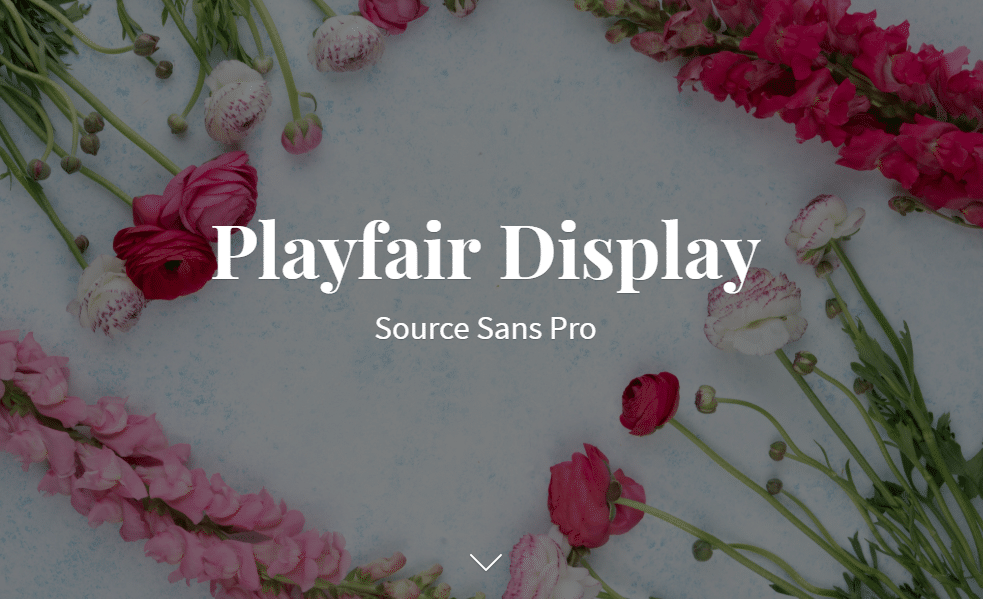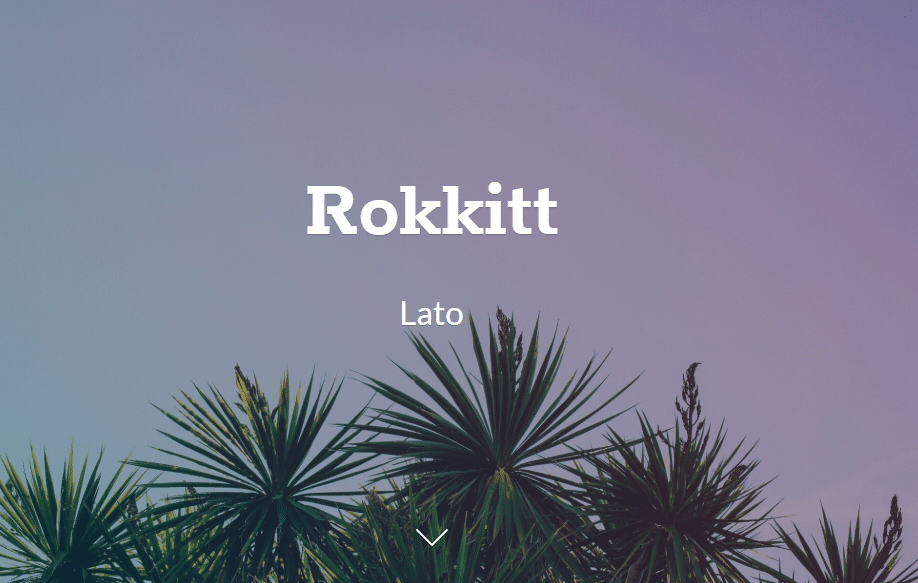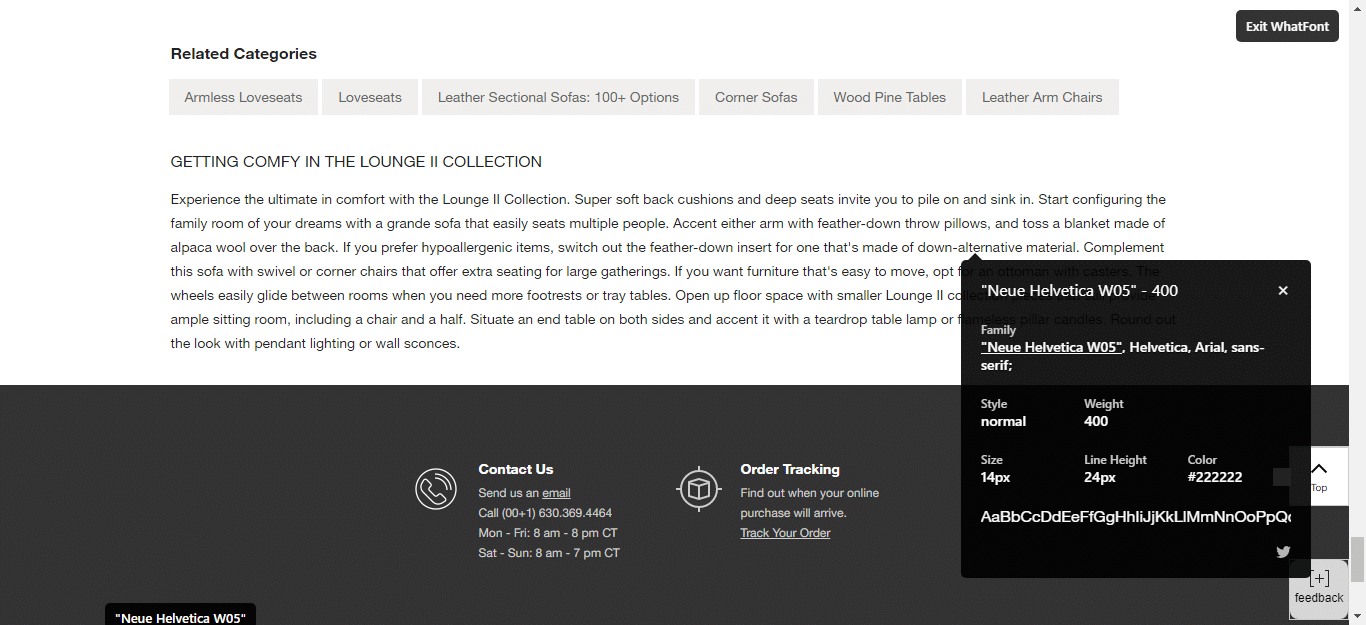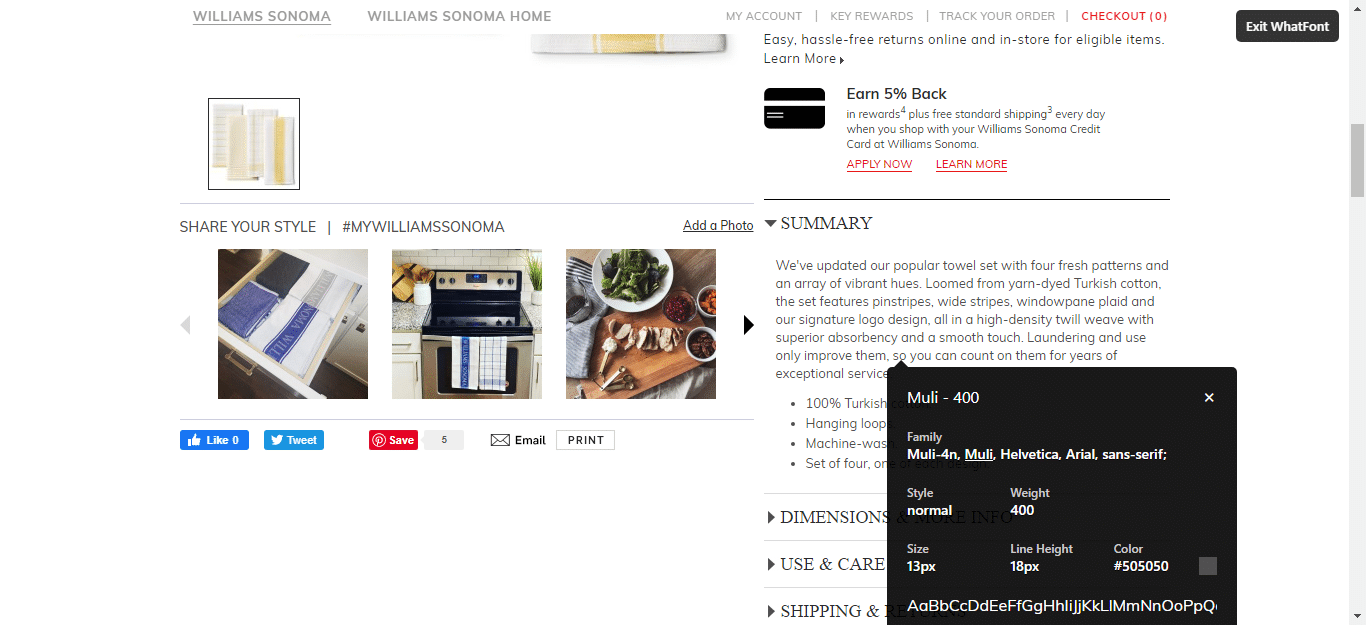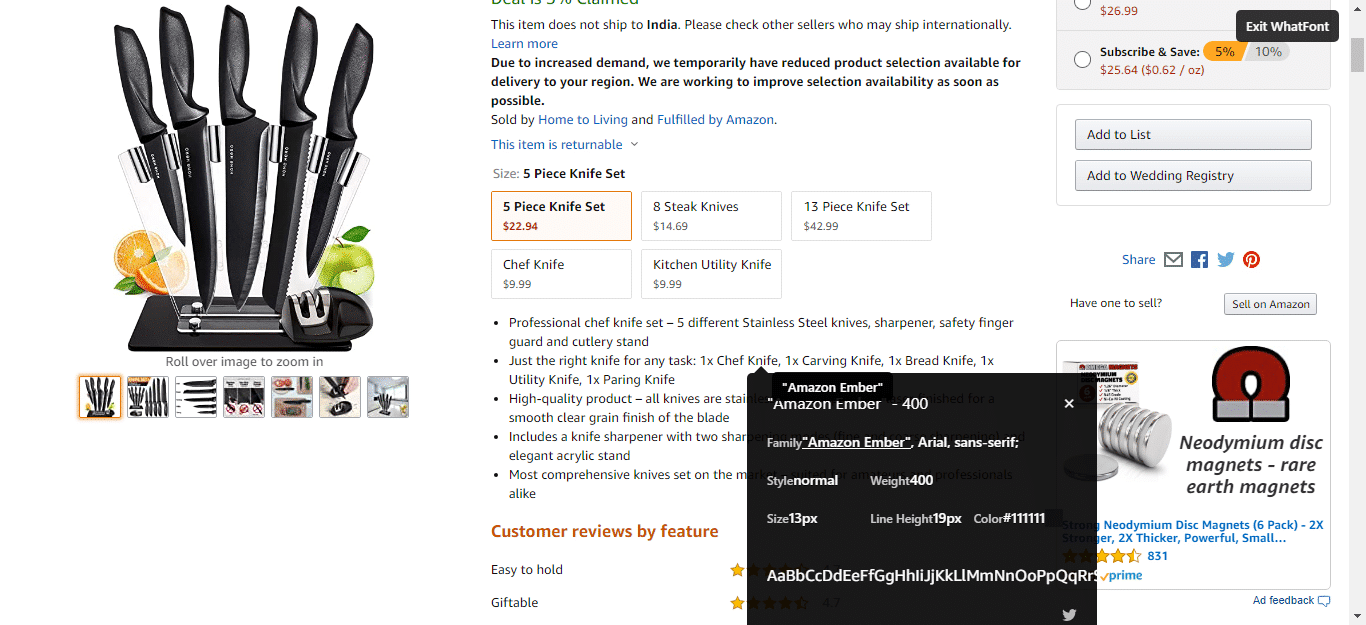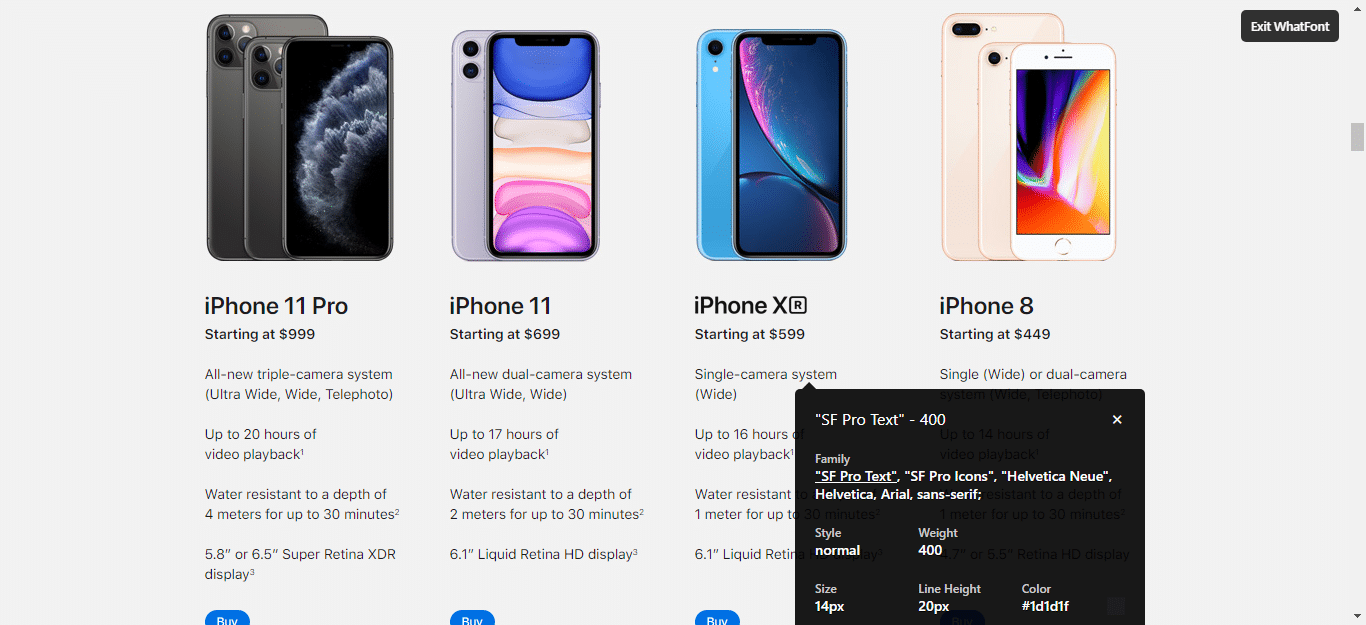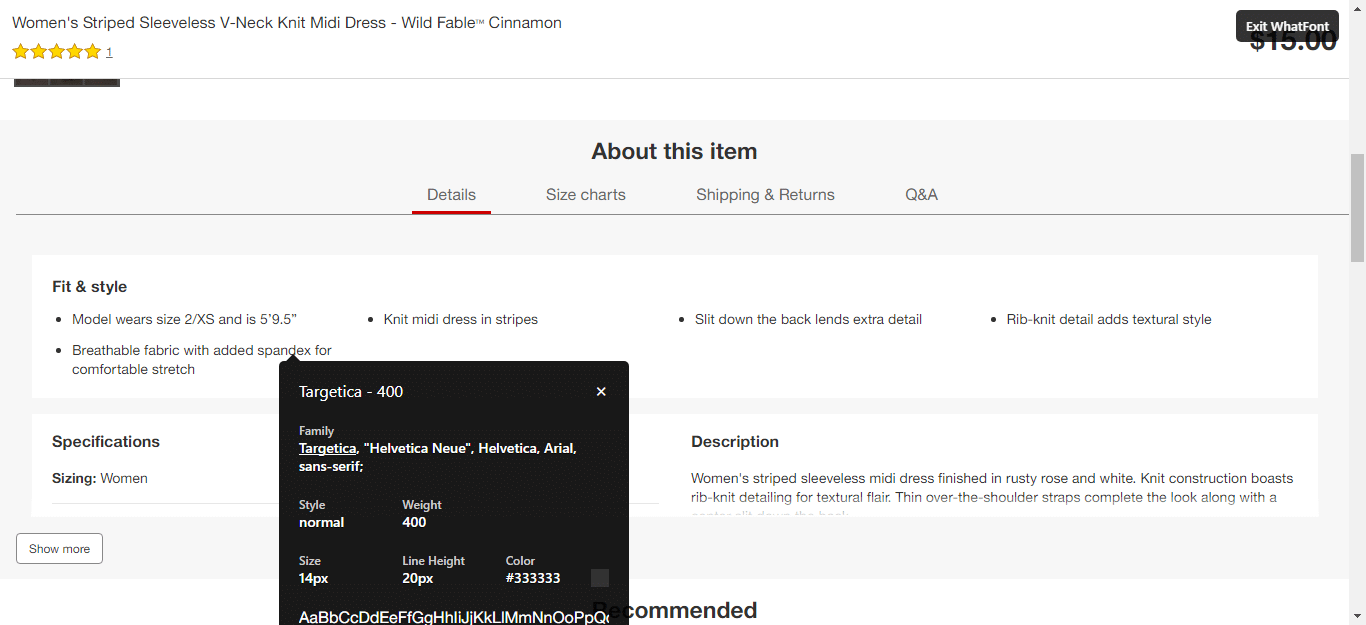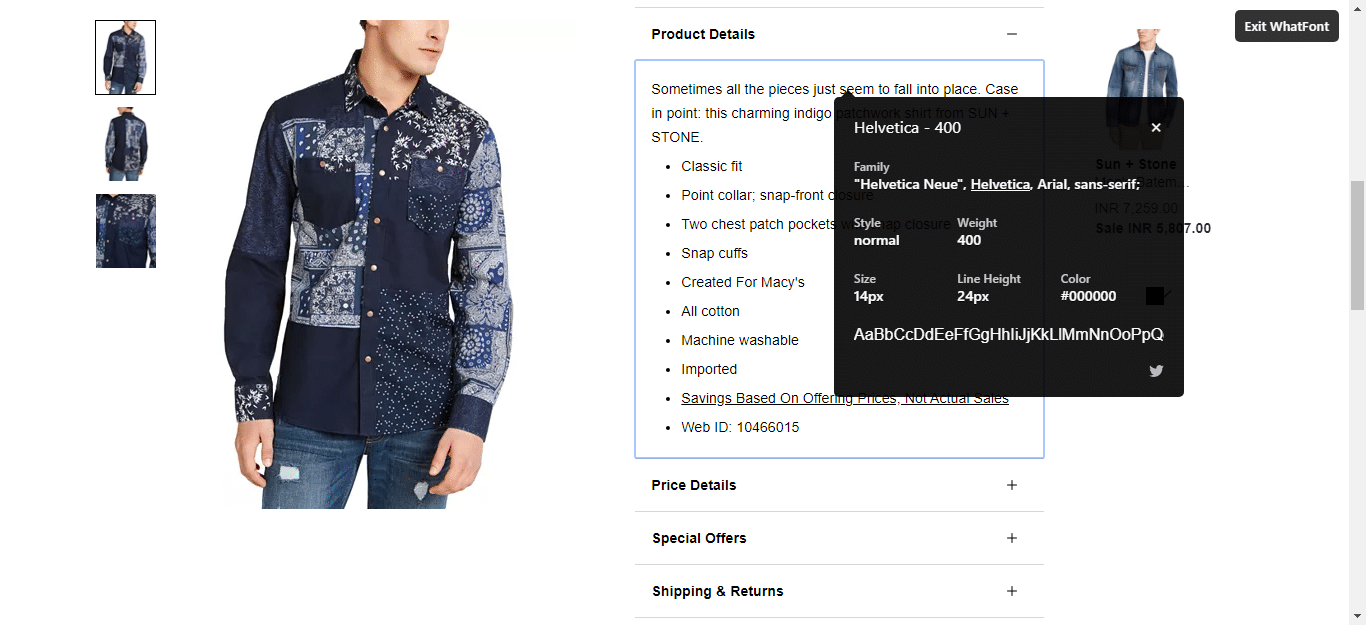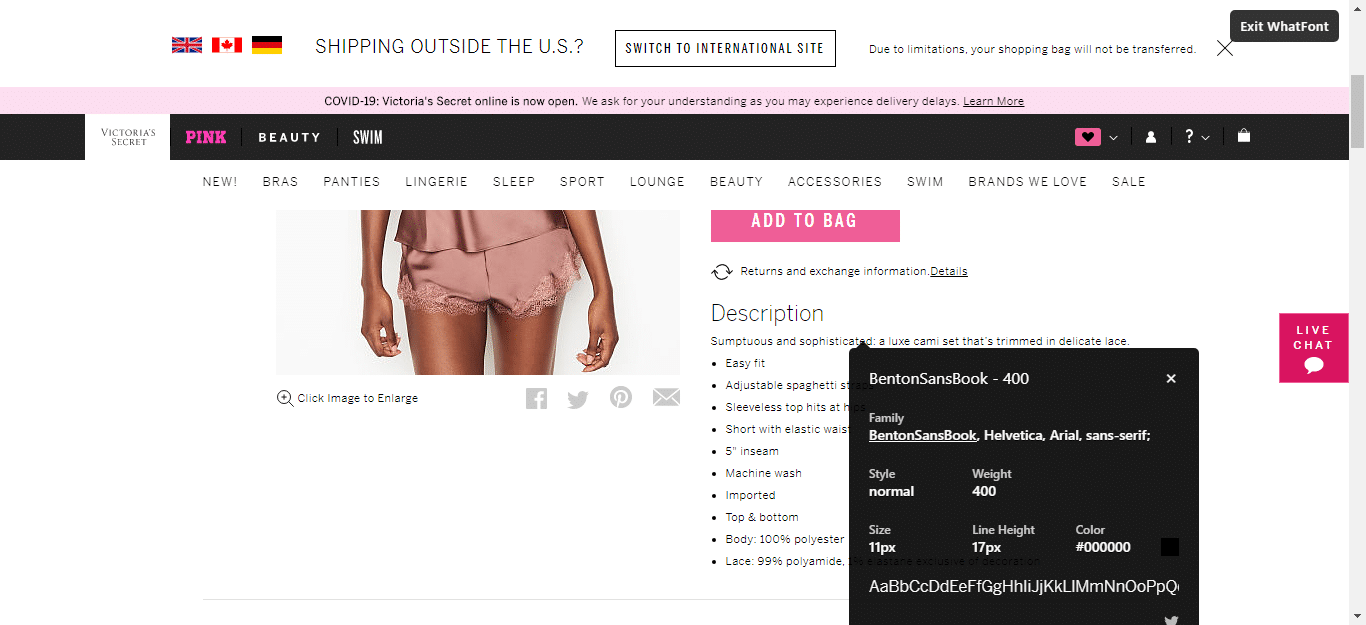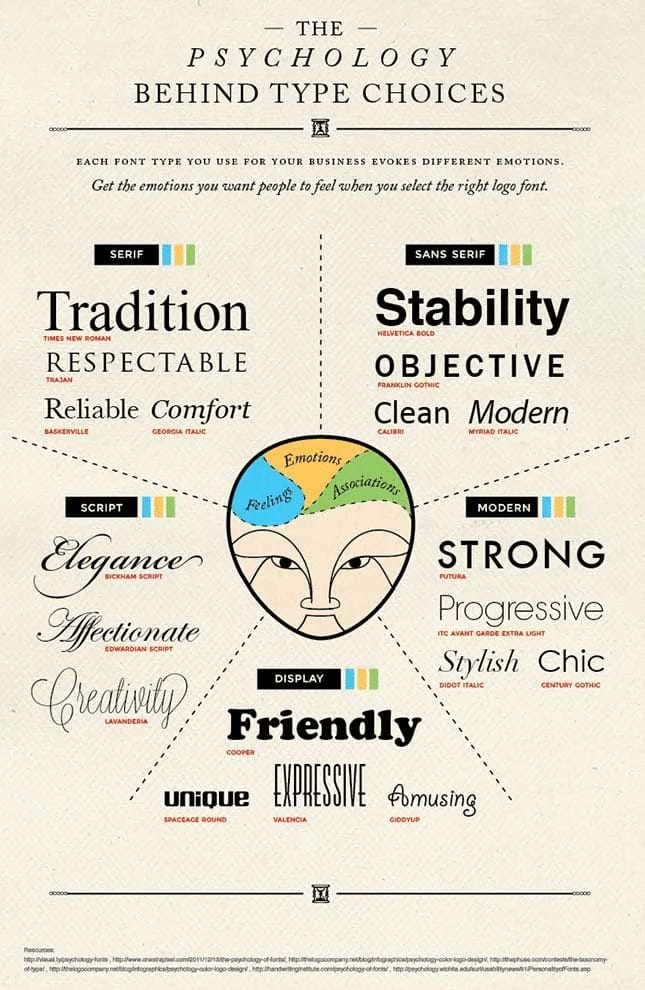
Typography is the voice of your website. Not only does choosing the right typography help to communicate your message, but it also has the power to affect tone and even make your brand more recognizable.
With so many options, finding your own right style can be a challenge, especially if you don’t know how fonts work together.
Why does font matter for Ecommerce Store?
According to the recent study, online users read only 26% of words on a page. This percentage may vary depending on the font style you use and how engaging your content is.
When used correctly, fonts can help draw a reader in, encourage them to stay on the page longer, and, hopefully, guide the customer successfully all the way through the buying process.
When Steve Jobs was creating the first Mac, he did something that was never done before — he created 10 font designs (typography) that you can choose from.
I know this doesn’t sound like much to us right now, but it was a major breakthrough in design at the time.
It made such a big impact on the industry that they called Steve Jobs the Grandfather of Typography.
If it wasn’t for Steve Jobs, this could be what you have to stare at every time you turn on your computer:
Steve Jobs was so obsessed about crafting the perfect font design for the Mac because he knew how typography can significantly improve user experience.
Difference Between a Font and a Typeface?
A typeface is the collective name of a family of related fonts (such as Times New Roman), while fonts refer to the weights, widths and styles that constitute a typeface (such as Times New Roman Regular, Italic, Bold…). Not all typefaces consist of multiple fonts however.
Different font styles communicate different subconscious messages to people – which can help you build brand identity
Serif vs Sans Serif Fonts
The small features on the ends of strokes in some fonts are known as “Serifs”.
Some common Serif typefaces are Times New Roman, Georgia, Palatino and Garamond.
In contrast, common Sans Serif typefaces include Arial, Helvetica and Tahoma.
Serif fonts can be very classic or formal and sometimes you hear them referred to as elegant. Sans Serif fonts are often described as modern, friendly and minimal because they have a stylish simplicity about them, without the decorative strokes.
The font design you choose acts the same way as your choice of outfits — the type of font design you pick says a lot about you, your business, and what your website is all about.
When to Use Serif and Sans Serif Fonts?
Serif fonts are easily readable at small body copy sizes, and Sans Serif fonts really stand out in large titles. There are many exceptions to this, but that is the most common usage.
What is the theory behind Font pair?
A font pair is a combination of two complementary fonts that you can use to blend your branded assets. This pairing can go for the heading-copy and body-copy.
Heading copy is used when working on brochures, posters, invitations, website pages, etc. while body-copy is used to write bulk content.
Here are some basic guidelines to follow:
- Create a contrast between your fonts (bold & cursive, TALL & short)
- Combine serif and san-serif fonts (like Libre Baskerville + Signika).
- Don’t use two similar fonts (for example, two cursives) for both your headline and body text. Creating variety will draw the eye and help your customer engage with each section individually.
- Make the font match your brand. Playful handwritten letters probably aren’t the best fit for a premium jewelry brand.
- Limit yourself to 2-3 fonts to avoid making your content appear cluttered.
Fonts can influence the way people perceive information. Basically, the typeface can actually affect the credibility of your website.
Understanding Font Personality Types
Font Personality #1) Traditional, Respectable, Comfort, Reliable:
If you want your website to represent this personality, the fonts you should consider should be designs that have been around for a very long time, such as Georgia, Trajan, and Times New Romans.
These fonts have traditionally been used in prints like newspapers, magazines, and books. Since most people are very familiar with these classic font designs, they instantly give off the impressions of heritage, reliability, and trust.
Font Personality #2) Contemporary, Modern, Minimalistic, Progressive:
These are fonts with very clean designs and has less handwriting qualities.
Font Personality #3) Strong, Stable, Defined:
If you want to make a statement or want to appear robust, this is the type of font you should use.
Conclusion
Selecting the right fonts for your online store might be daunting, but these examples will help you create the best font pairing for your site. Using attributes like color, size, weight and classification, you can create a duo that works well together.
I tried to provide a little bit of something for everyone. Keep in mind, not all of these fonts will work for every website. So go through these and see which fonts fit best for your business, industry, audience, and theme.